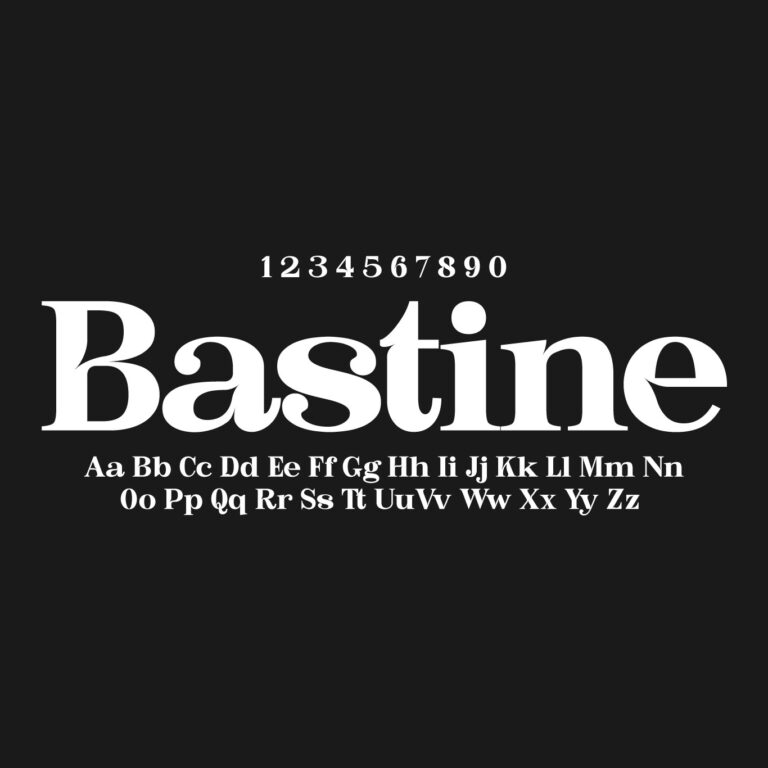
Download Bastine font for free in TTF format for elegant serif typography, luxury-style logos, packaging, invitations, magazine titles and refined social media graphics. This package includes two styles: the main Bastine serif and a matching outline version.
Bastine is a modern classy serif font by Afkari Studio. Its high-contrast strokes, sharp serif details and decorative alternates give it a polished display look. The font is better suited for titles and short text than long body copy, because its personality comes from large, visible letter shapes.
Use Bastine when you need a stylish serif with a fashion, beauty, wedding, boutique or premium product feeling. The Regular style works well for logos, headlines and elegant titles. The Outline style is useful for decorative layouts, packaging accents, poster typography and layered text compositions.